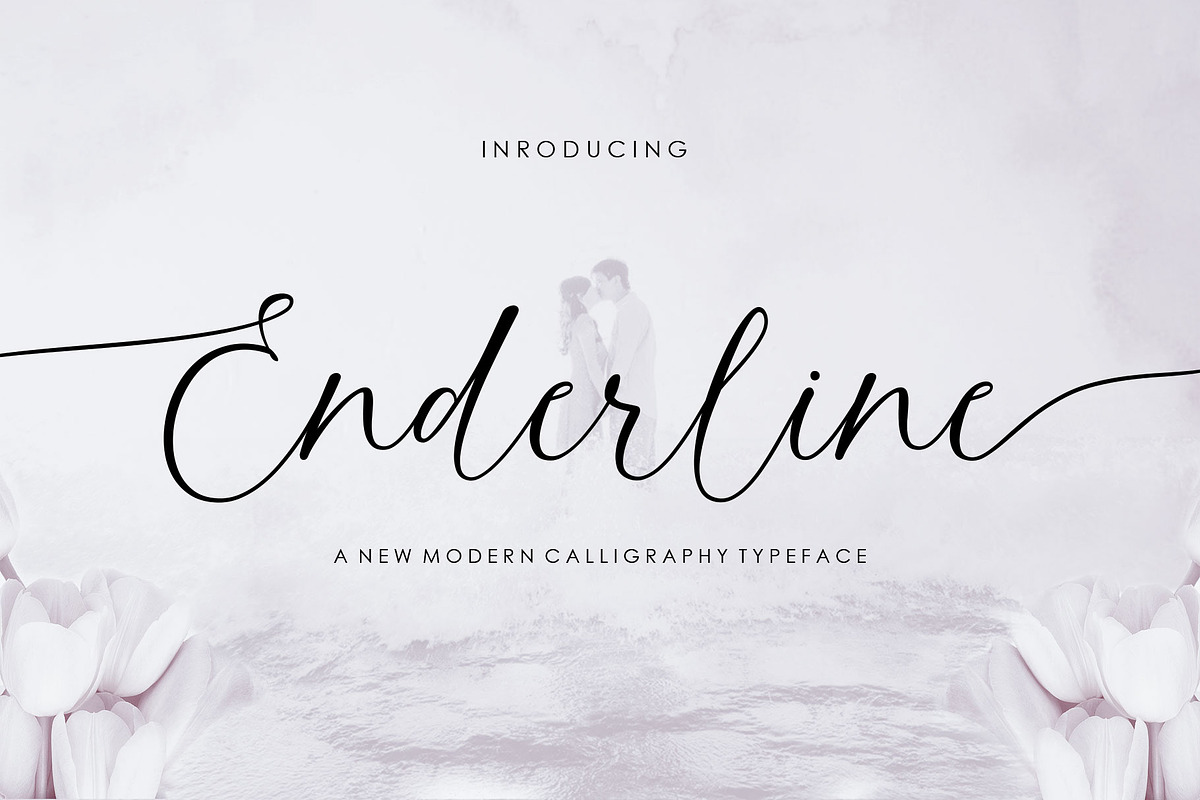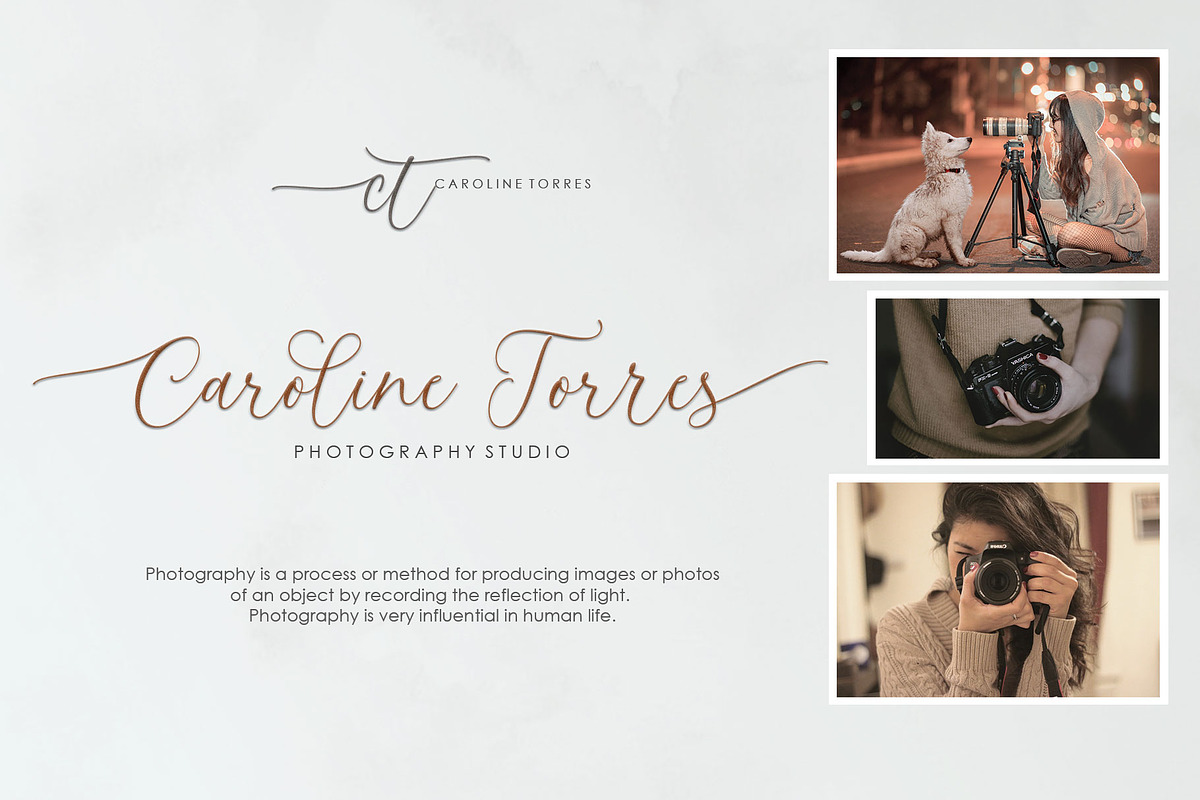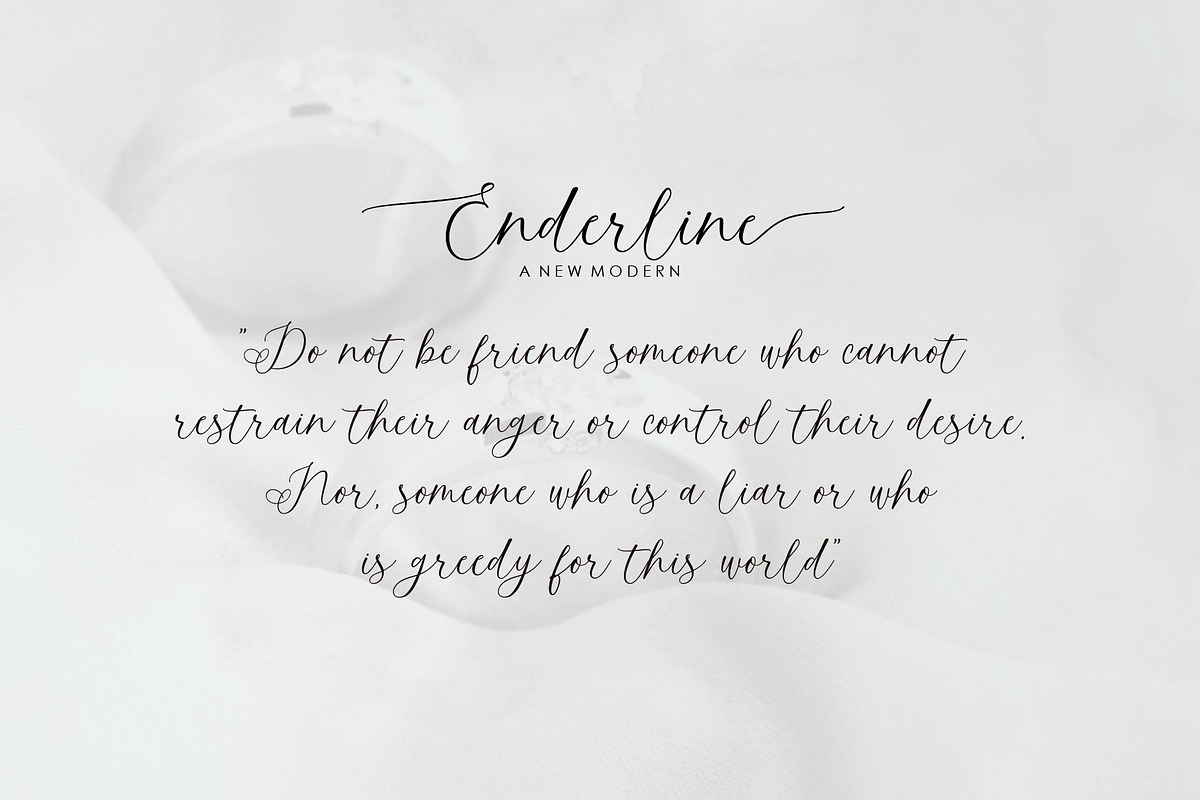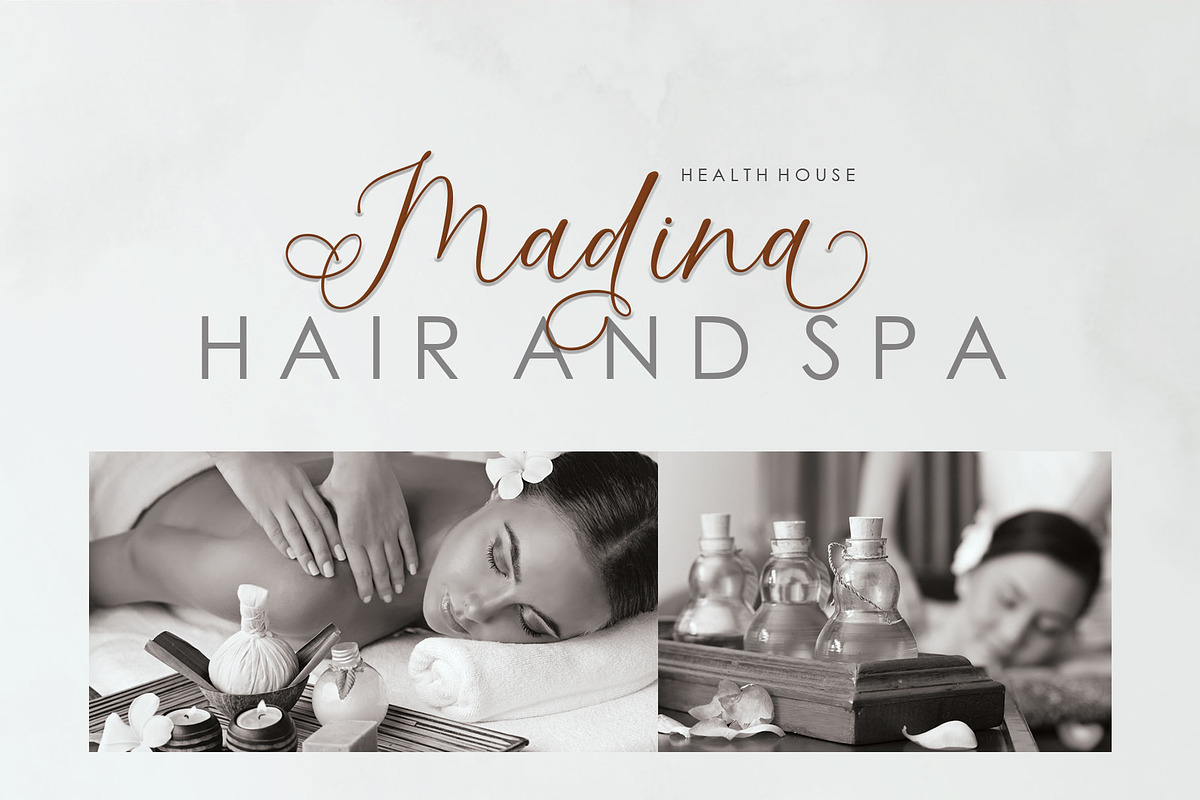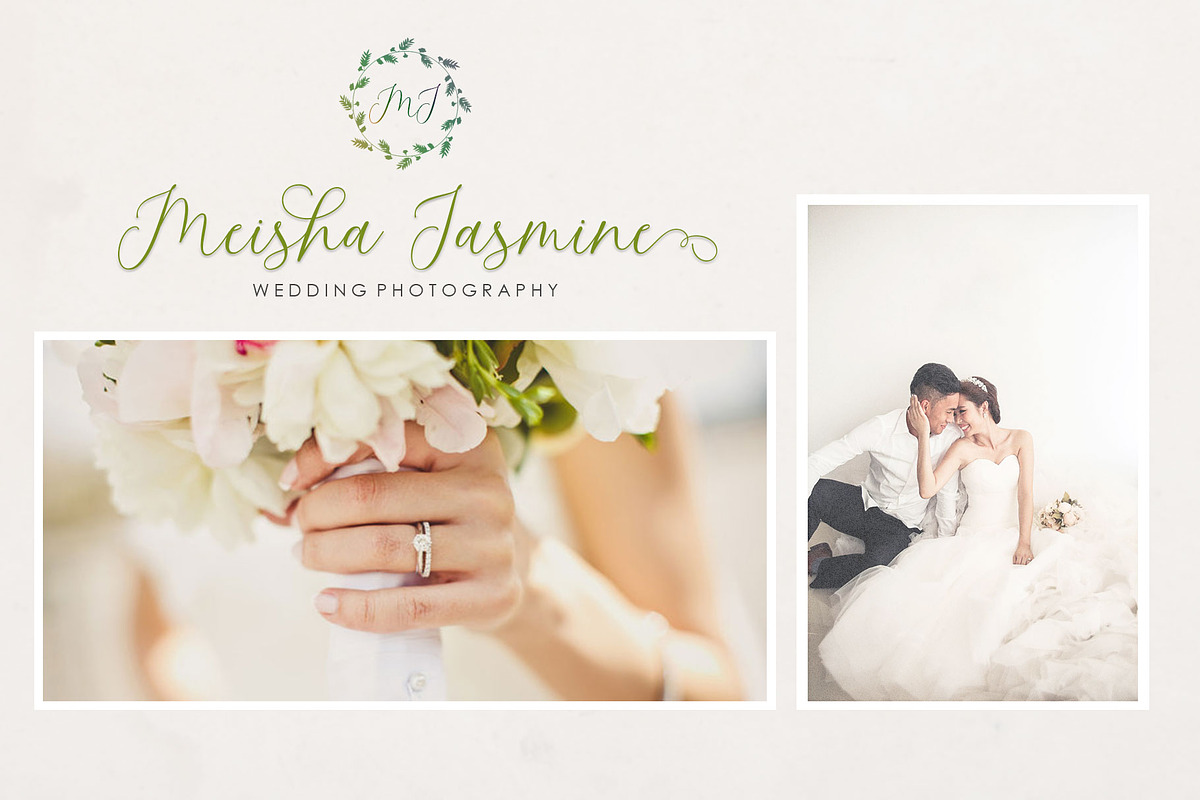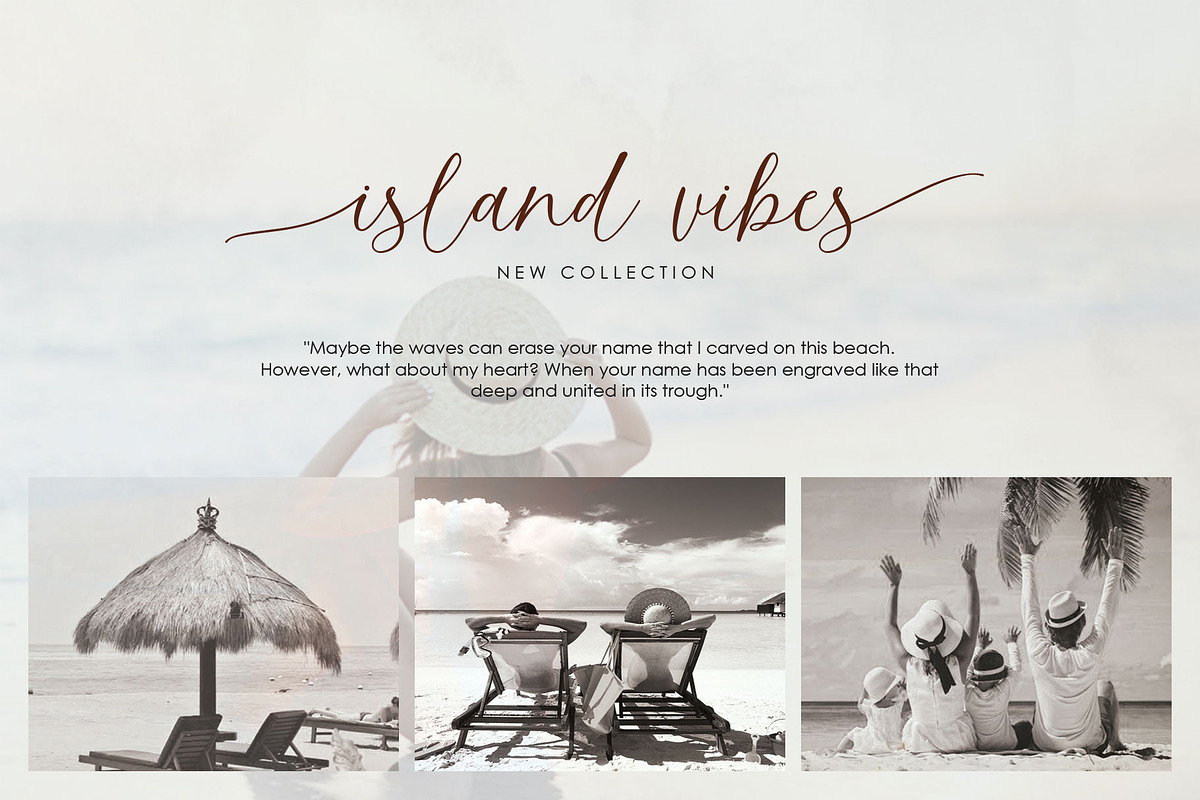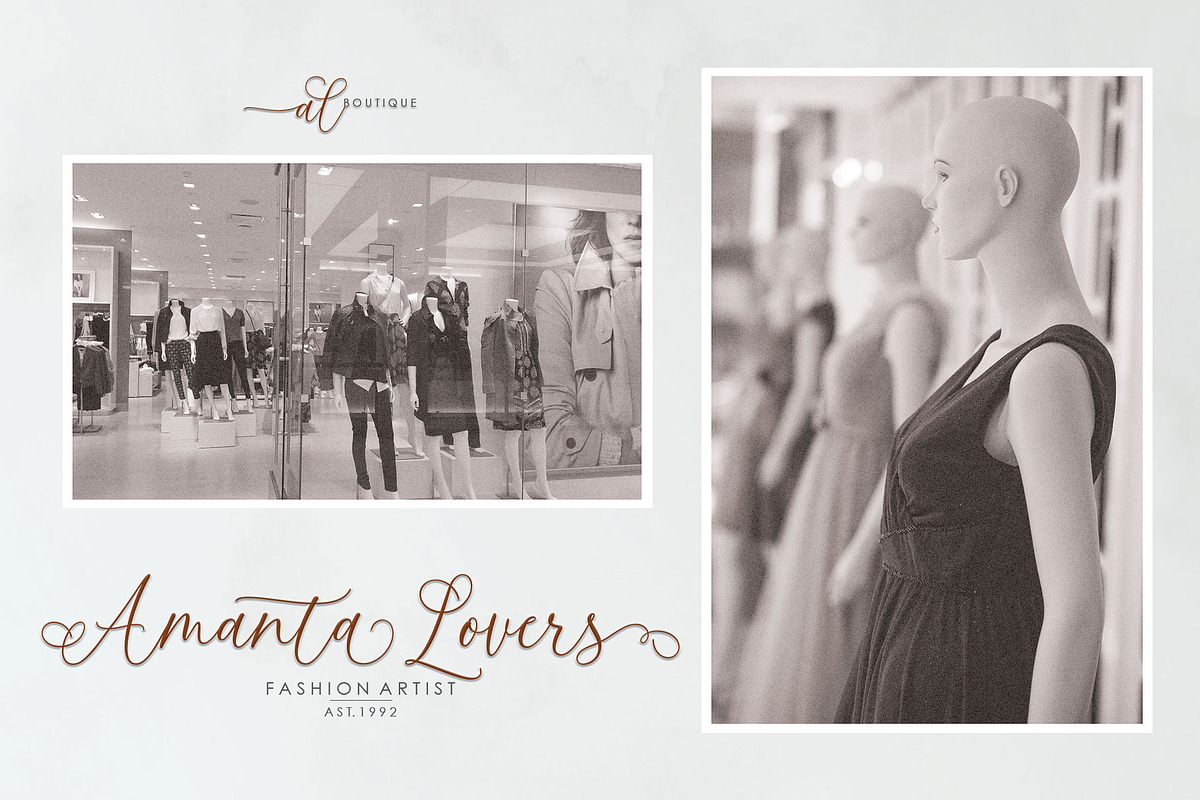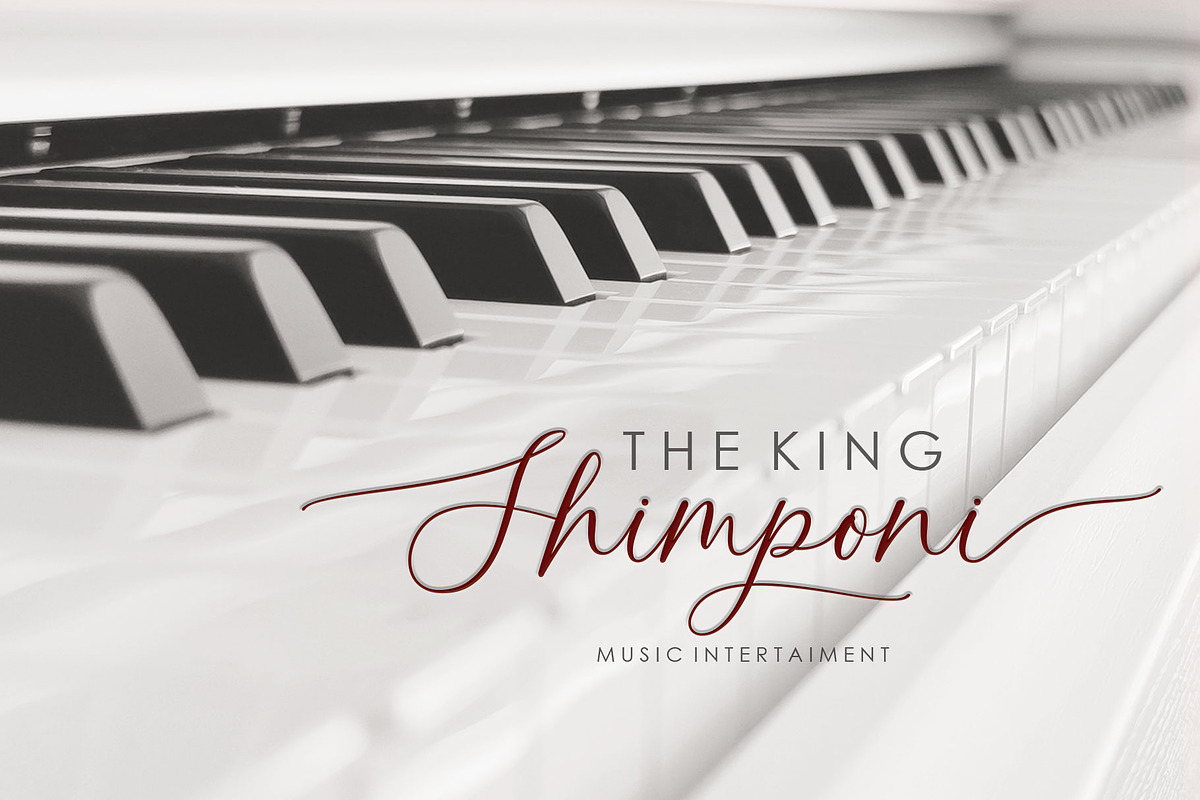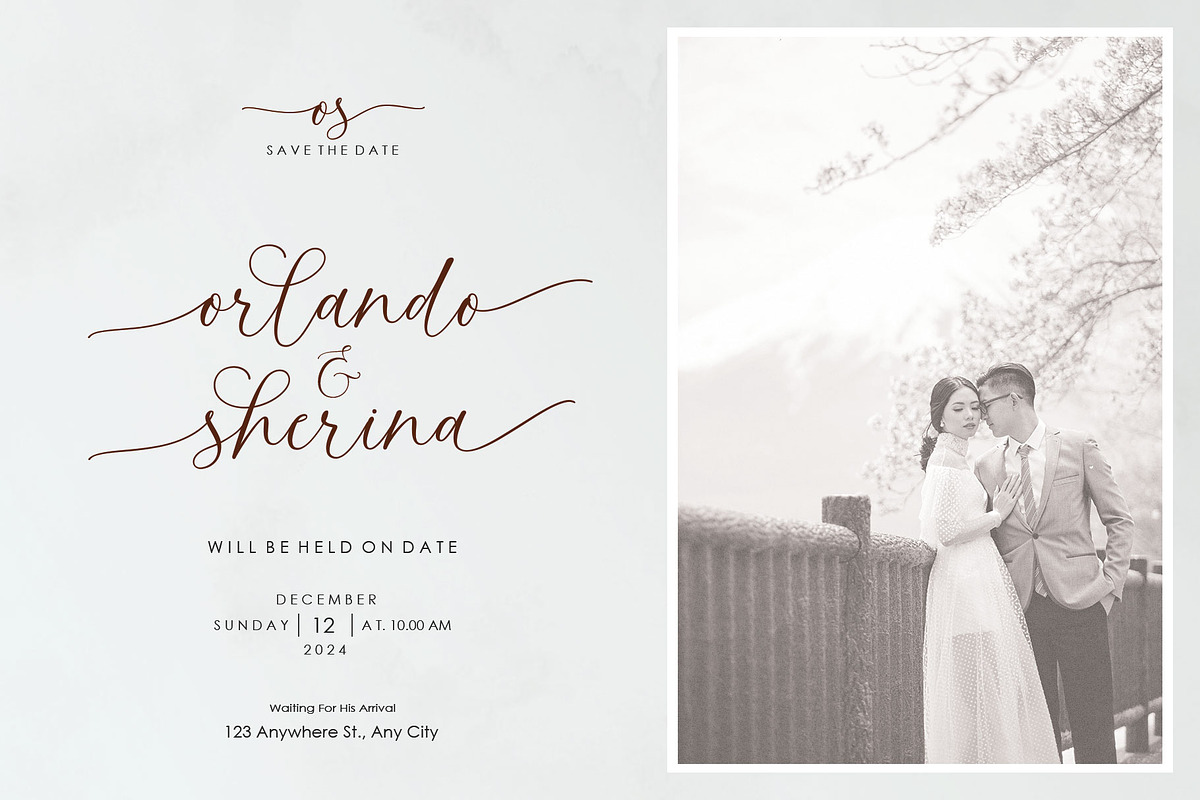
Enderline Script
Hi! Meet again the new Enderline Script font from us.
Enderline Script includes the full set of upper and lower case letters, multilingual symbols, numbers, and punctuation, standard ligatures, stylistic alternates.
This is perfect for your various design needs, such as logos and branding, social media posts, advertisements, business cards, product design etc.